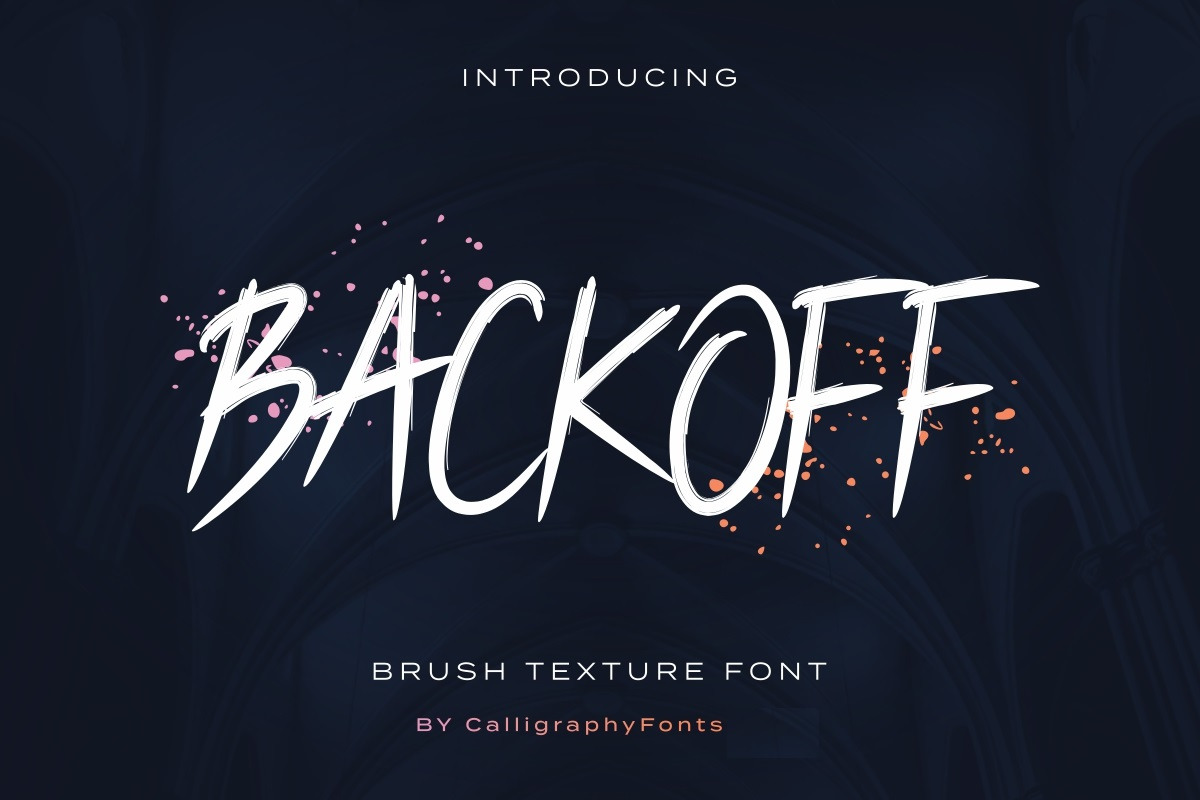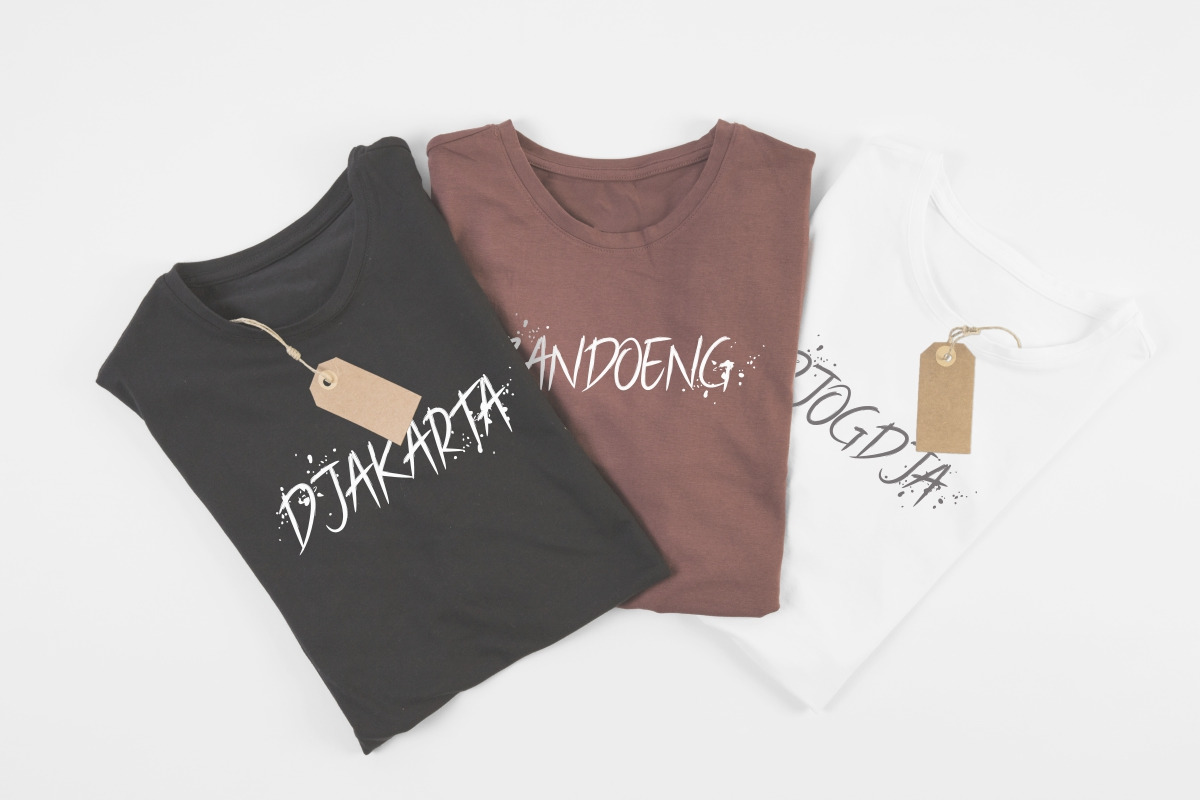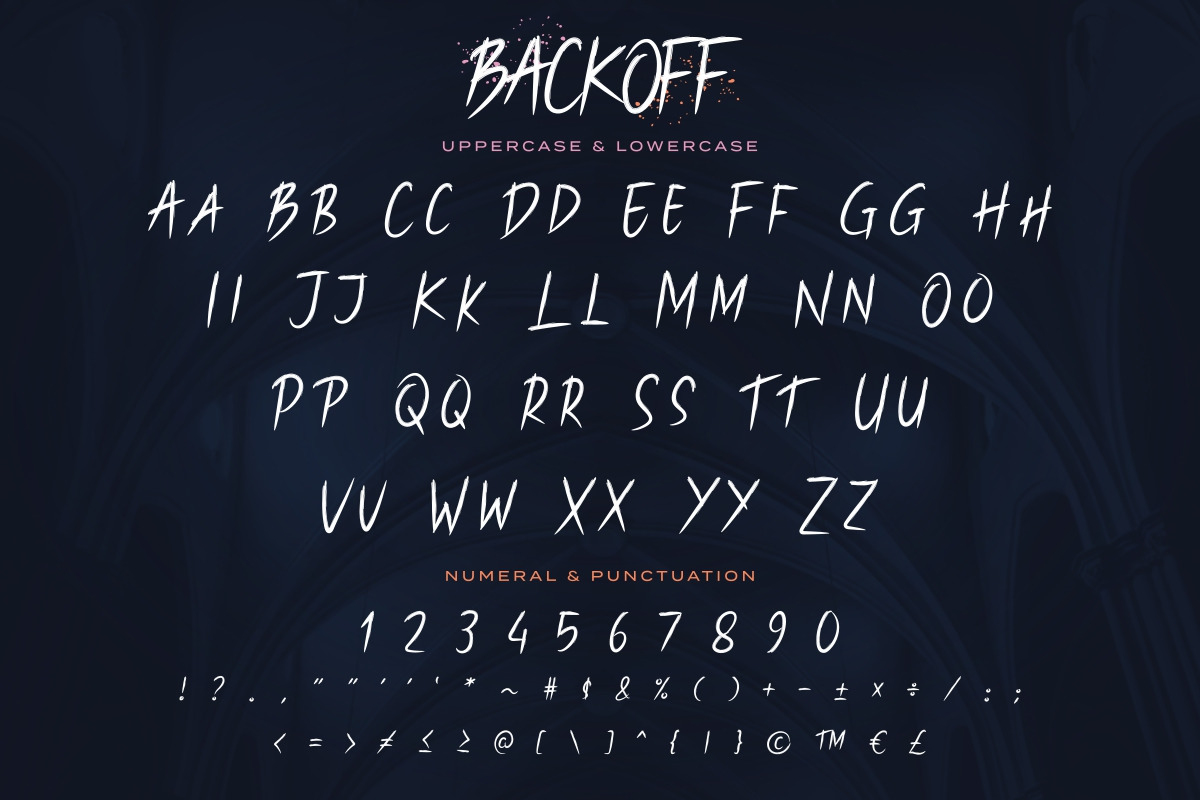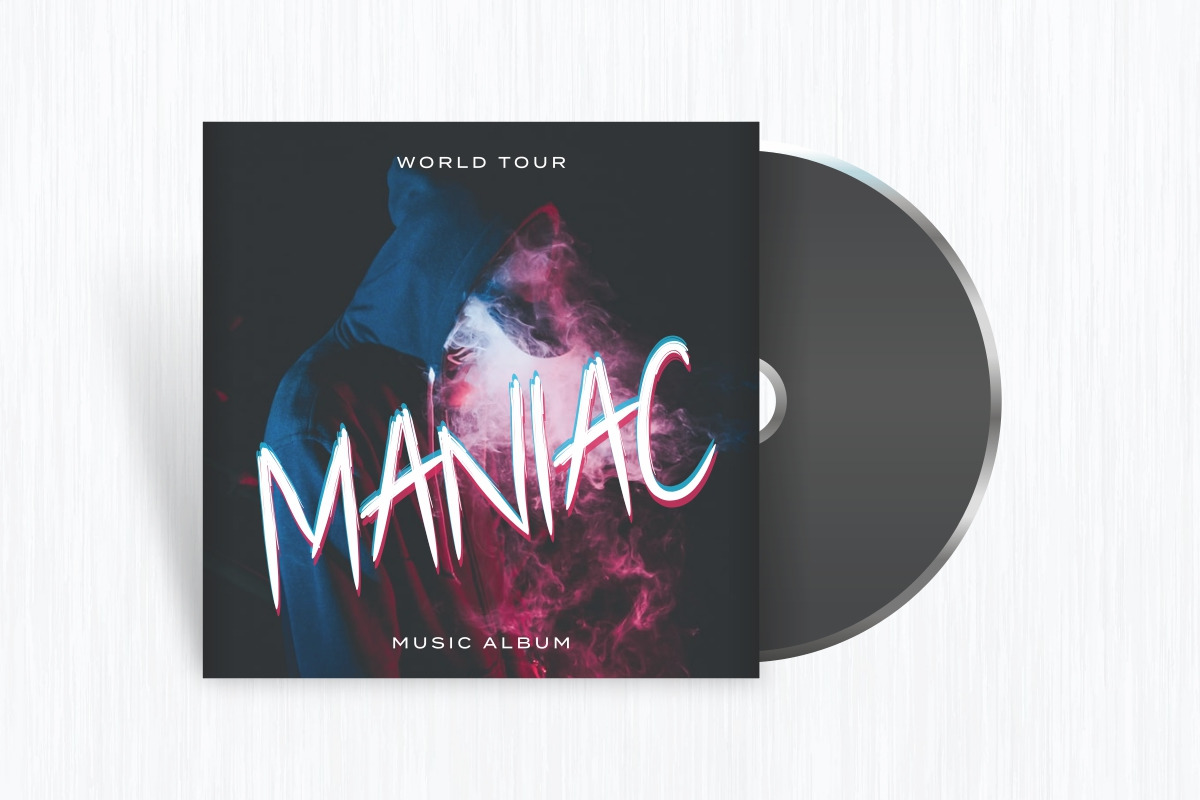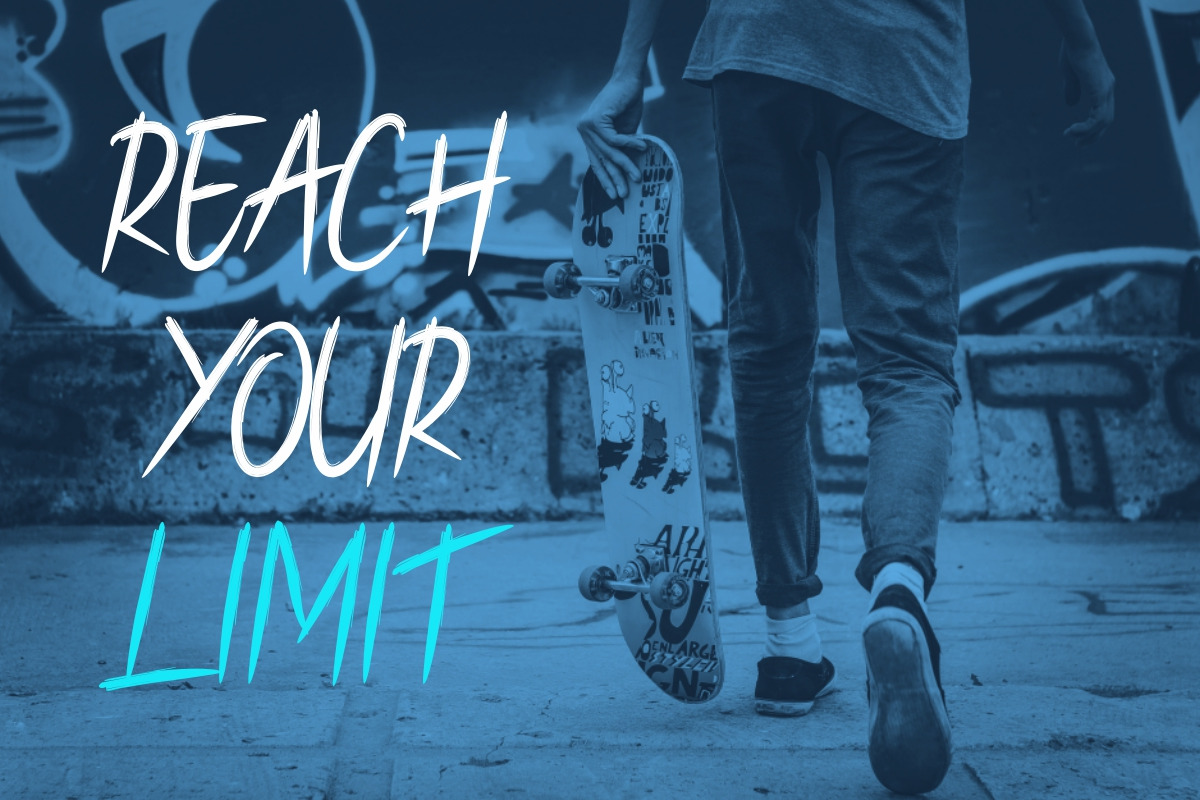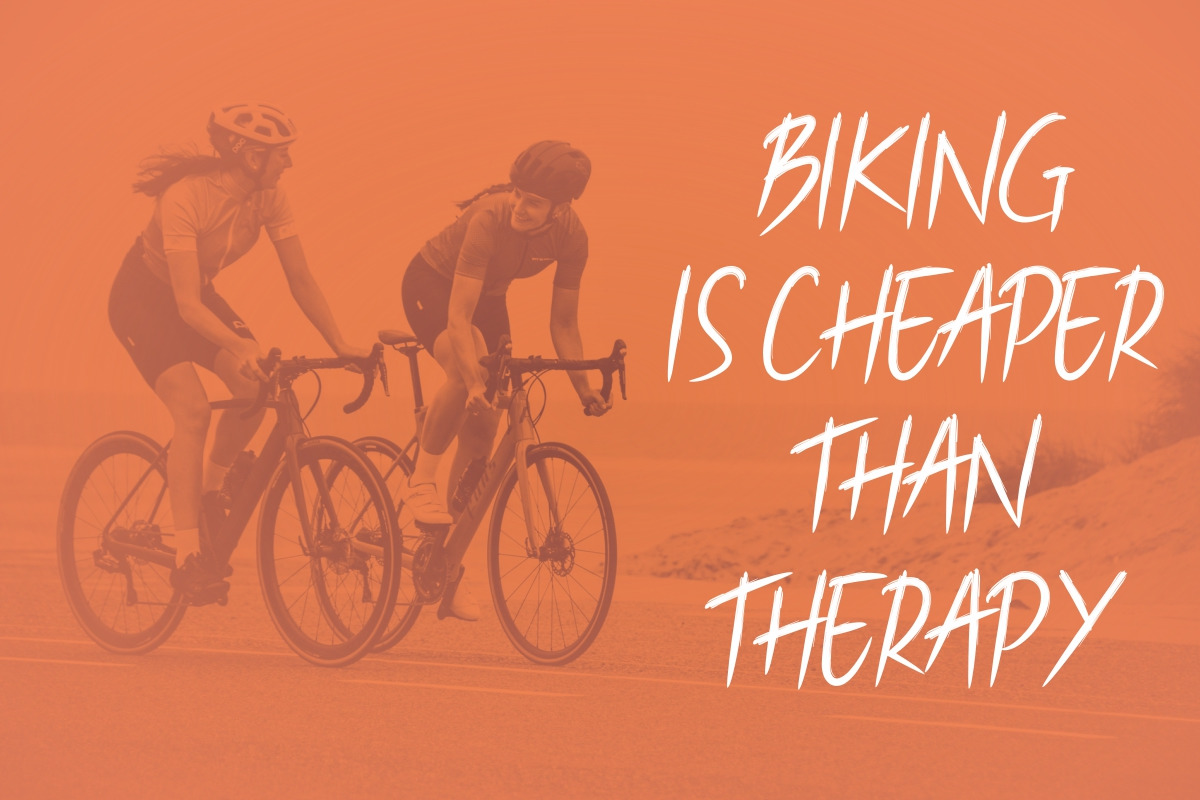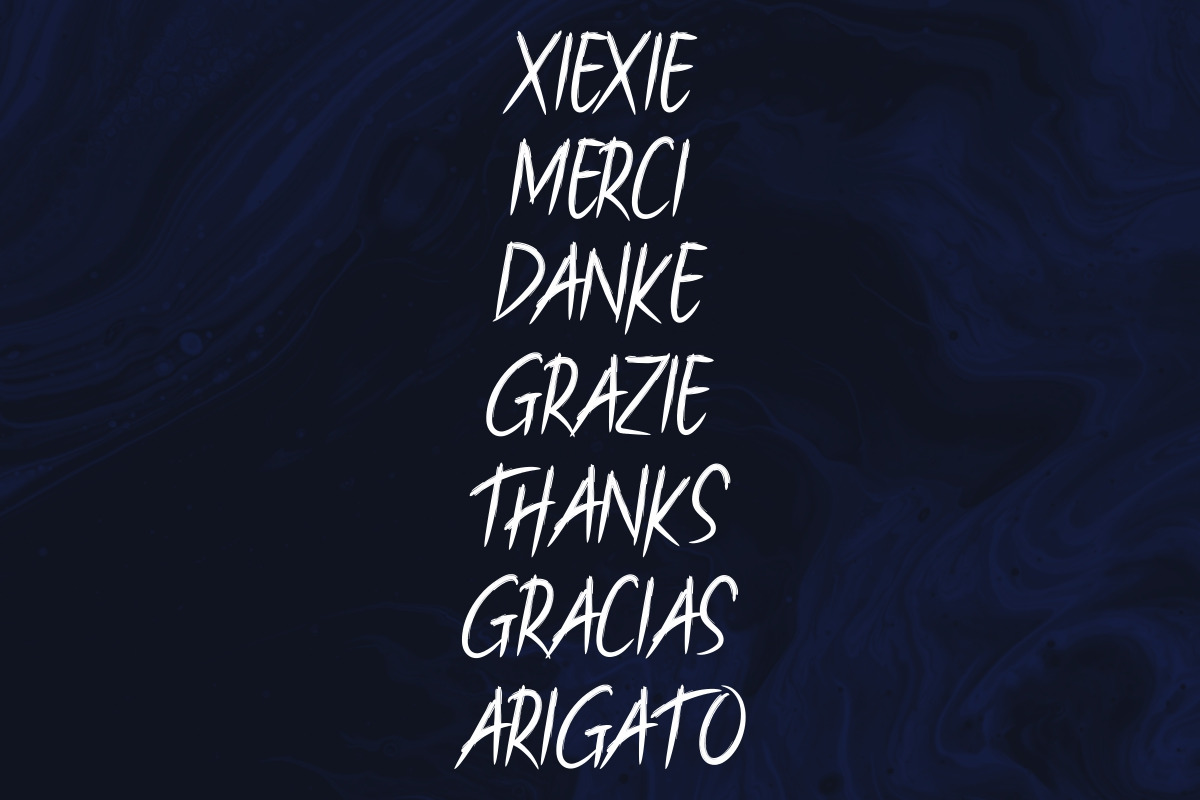
BACKOFF Brush Font
BACKOFF Font is a rough brush display script font. The style of this font are horror, black, scary, grunge, rough and mysterious brush .